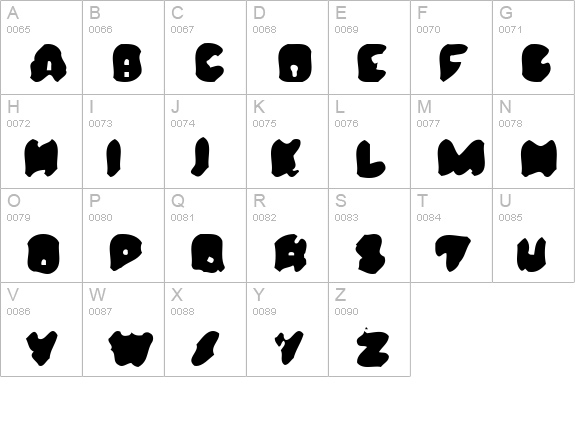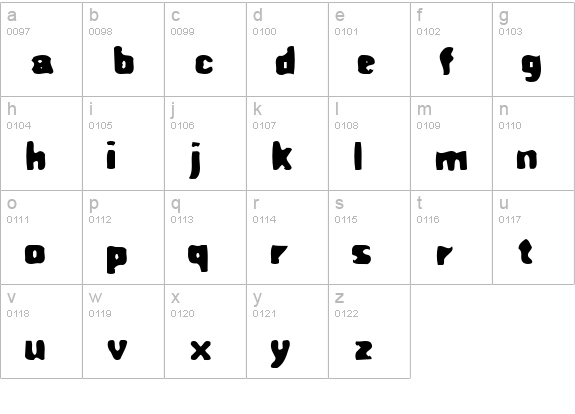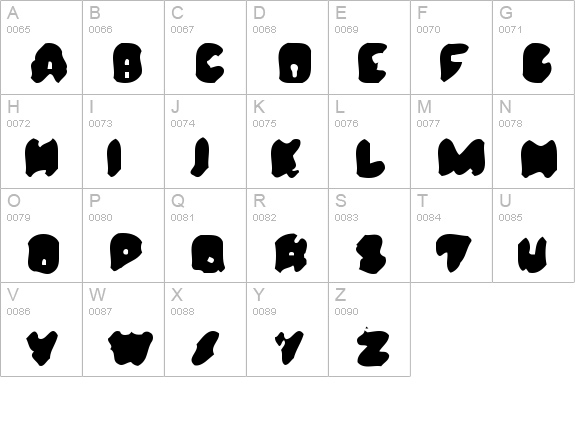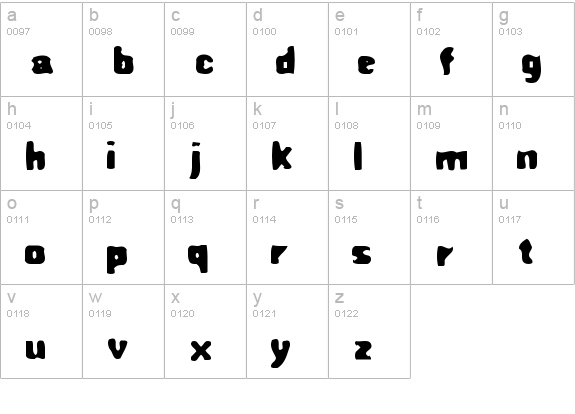
Rusty Font Details
Rusty font is a unique and eye-catching typeface that exudes a sense of rugged charm and industrial appeal. Its weathered appearance and distressed edges give it a rustic and vintage feel that is perfect for adding character to your designs. The rough texture of the letters adds a touch of authenticity and nostalgia to any project. What's even better is that Rusty font is completely free to download at FontsMarket.com. This means you can easily incorporate this one-of-a-kind font into your creative endeavors without any cost. Whether you're working on a poster, logo, or branding project, Rusty font will surely make a bold statement and leave a lasting impression on your audience. Don't miss out on the opportunity to enhance your designs with the captivating and free Rusty font. Download it today and let your creativity shine!